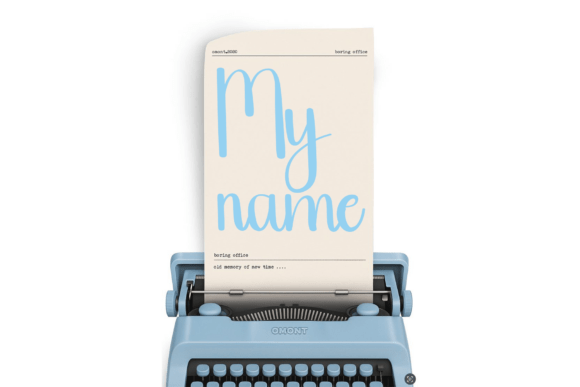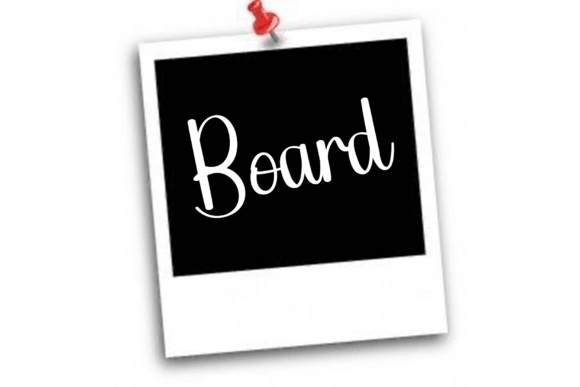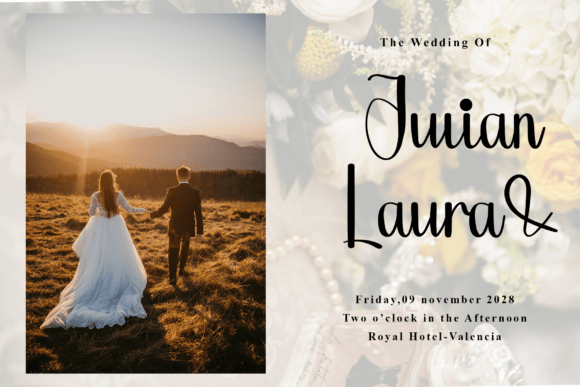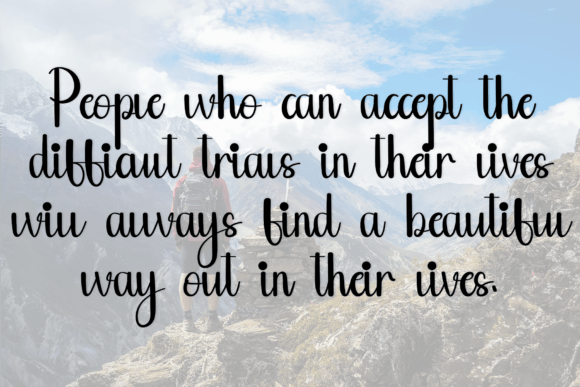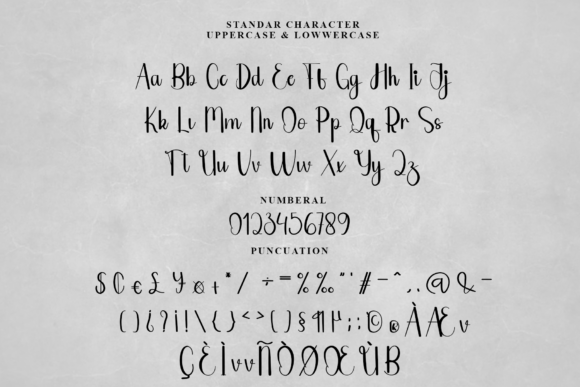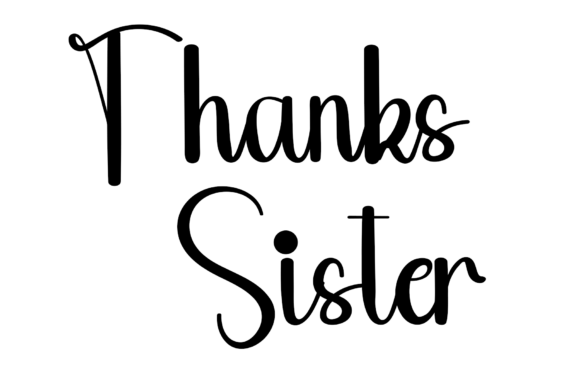
The Charm of Handwritten Fonts: Adding Warmth and Personality to Your Designs
In the world of typography, handwritten fonts have a special place in the hearts of designers and crafters. They bring a sense of warmth, personality, and approachability to any design. One such font that embodies these qualities is the Handwritten font. With its smooth strokes, natural curves, and easy-flowing letterforms, it captures the essence of authentic handwriting with a modern twist.
What Makes Handwritten Fonts So Special?
Handwritten fonts are unique in their ability to convey a sense of human touch and emotion. Unlike traditional serif or sans-serif fonts, handwritten fonts are crafted to mimic the natural flow of handwriting. This results in a more organic and personal feel that resonates with readers. The Handwritten font, in particular, stands out for its effortless style and versatile character.
Key Features of the Handwritten Font
- Smooth Strokes: The Handwritten font features smooth, fluid strokes that give it a natural and effortless look.
- Natural Curves: The font’s curves and bends are carefully crafted to mimic the imperfections of real handwriting.
- Easy-Flowing Letterforms: Each letter is designed to flow seamlessly into the next, creating a sense of continuity and rhythm.
- Modern and Approachable: The font strikes a perfect balance between modernity and approachability, making it suitable for a wide range of design applications.
The Handwritten font is incredibly versatile and can be used in various design projects, including:
- Quotes and Sayings: Add a personal touch to inspirational quotes, sayings, and phrases.
- Invitations and Announcements: Create warm and inviting invitations for special occasions, such as weddings, birthdays, and graduations.
- Branding and Packaging: Use the Handwritten font to add a friendly and approachable feel to your brand’s identity and packaging.
- Social Media Posts: Elevate your social media content with a personal and engaging touch.
Benefits of Using Handwritten Fonts
Incorporating handwritten fonts like the Handwritten font into your designs offers several benefits:
- Readability: The font’s clear and flowing letterforms ensure excellent readability, even at smaller sizes.
- Charm and Character: The Handwritten font adds a unique charm and character to your designs, setting them apart from more traditional typography.
- Emotional Connection: Handwritten fonts have the power to create an emotional connection with readers, making your designs more relatable and engaging.
Tips for Using Handwritten Fonts Effectively
To get the most out of the Handwritten font, consider the following tips:
- Use it Sparingly: Balance the Handwritten font with other typography to avoid overwhelming the reader.
- Experiment with Colors: Play with different colors and textures to enhance the font’s natural and organic feel.
- Mix and Match: Combine the Handwritten font with other fonts to create a unique and visually appealing typography.
In conclusion, the Handwritten font is a beautiful and versatile addition to any design project. Its smooth strokes, natural curves, and easy-flowing letterforms make it perfect for adding a personal and friendly touch to your designs. Whether you’re a designer, crafter, or simply a typography enthusiast, the Handwritten font is sure to inspire and delight.